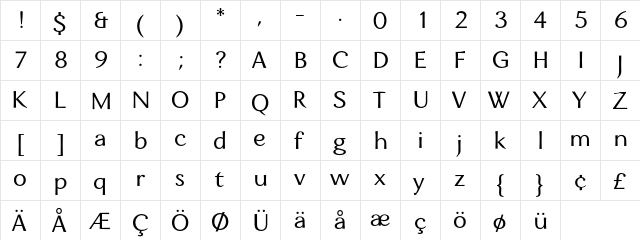
Eniza Regular
| Foundry | by Jeremy Dooley |
Design Context for Eniza Typeface
Eniza is a composed and adaptable typeface that performs quietly and consistently across a wide range of design contexts.